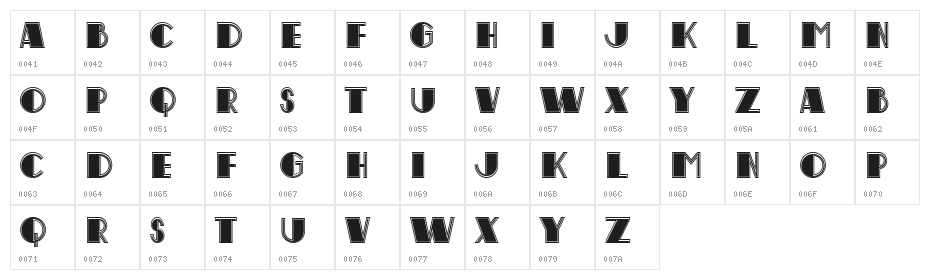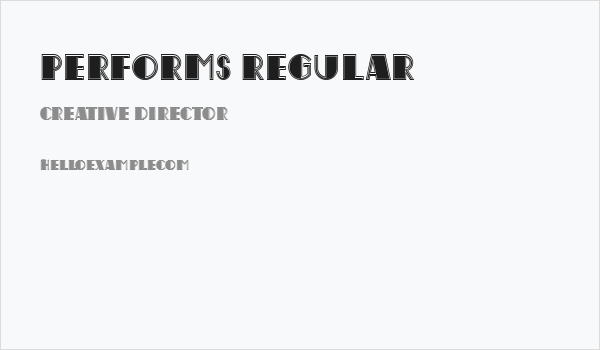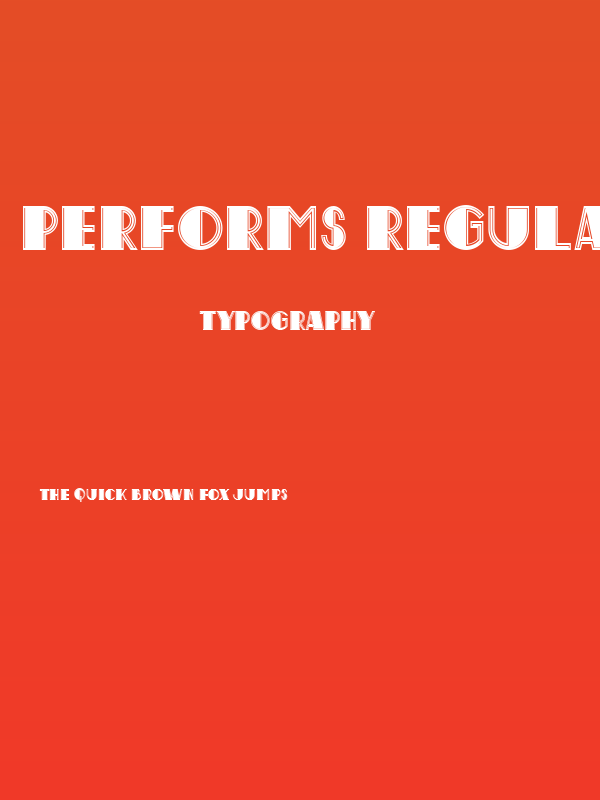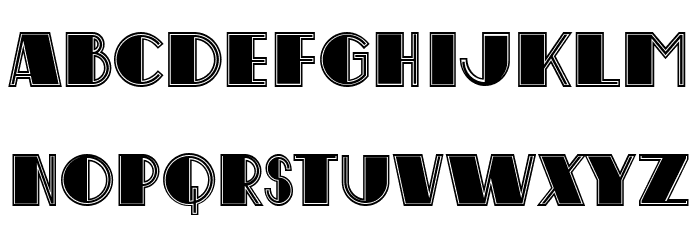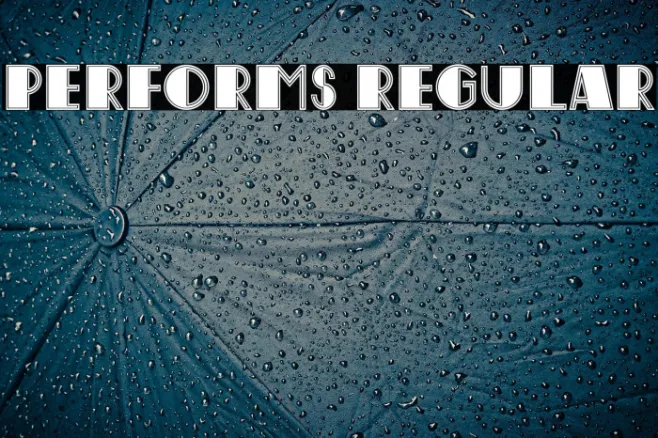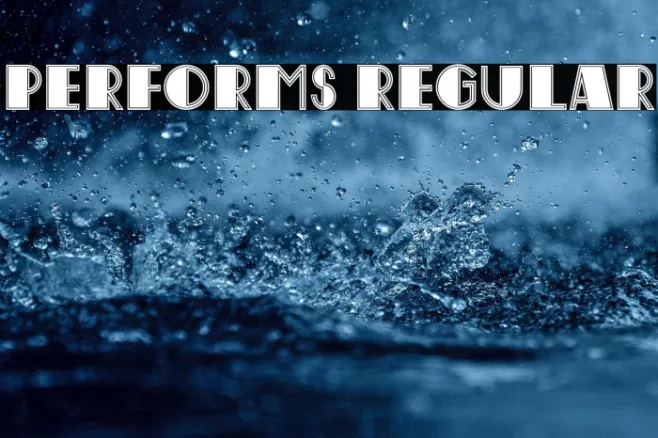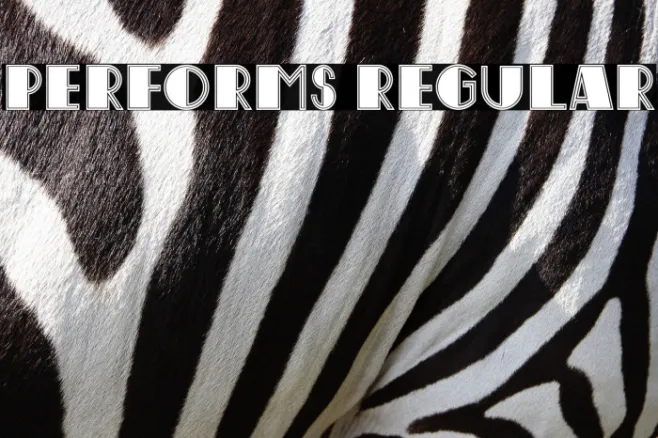
Performs Regular Font
Performs Regular Description
This font features a bold, geometric design with a strong emphasis on angular shapes and clean lines. Each character is crafted with a unique blend of thick and thin strokes, creating a striking visual contrast. The uppercase letters are particularly distinctive, with some incorporating subtle decorative elements that add a touch of flair. The overall appearance is modern and dynamic, making it suitable for eye-catching displays and headlines. The font's structure is consistent, ensuring readability while maintaining its artistic edge.